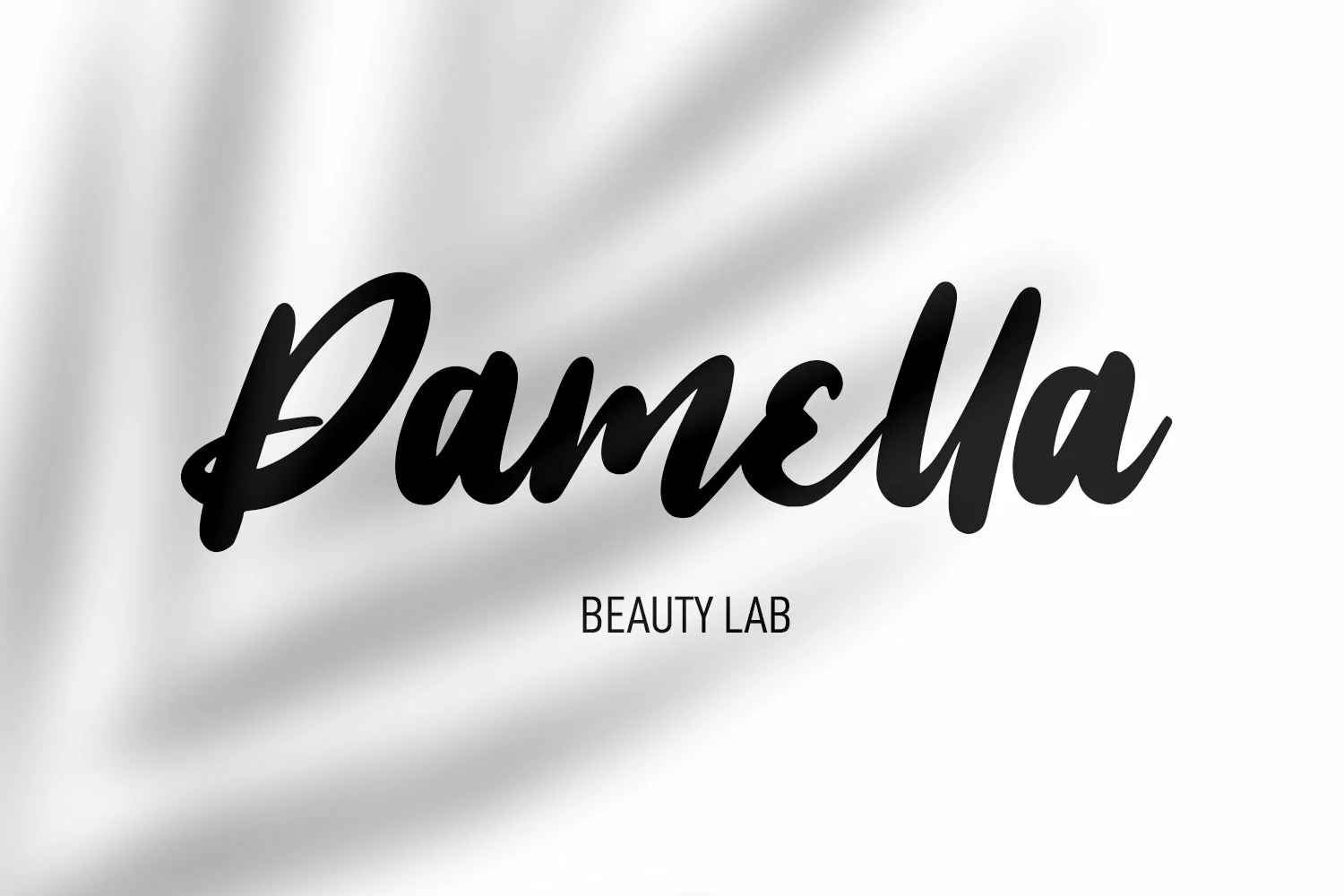
Misstho is casual modern script font. With bold contrast stroke, fun character. To give you an extra creative work. Misstho font support multilingual more than 100+ language. This font is good for logo design, Social media, Movie Titles, Books Titles, a short text even a long text letter and good for your secondary text font with sans or serif. Make a stunning work with Misstho font.
Misstho